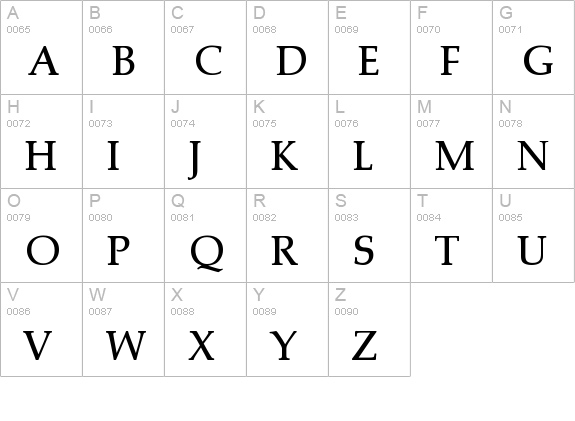
MarathonSerial-Medium-Regular is a balanced, medium-weight variant in the MarathonSerial typeface family \xE2\x80\x94 well suited to sub-headlines, navigation, and balanced editorial work.
MarathonSerial-Medium-Regular font is a versatile and modern typeface that strikes the perfect balance between professionalism and creativity. Its clean lines and balanced proportions make it suitable for a wide range of design projects, from branding to editorial layouts. This font features a medium weight that lends a sense of stability and readability, making it ideal for body text as well as headlines. The MarathonSerial-Medium-Regular font exudes a sense of confidence and sophistication, making it a great choice for projects that require a touch of elegance. Best of all, MarathonSerial-Medium-Regular font is available for free download at FontsMarket.com. This means you can effortlessly add this stylish font to your collection without breaking the bank. Don't miss out on the opportunity to enhance your designs with this sleek and timeless typeface. Download MarathonSerial-Medium-Regular font today and elevate your creative projects to new heights.